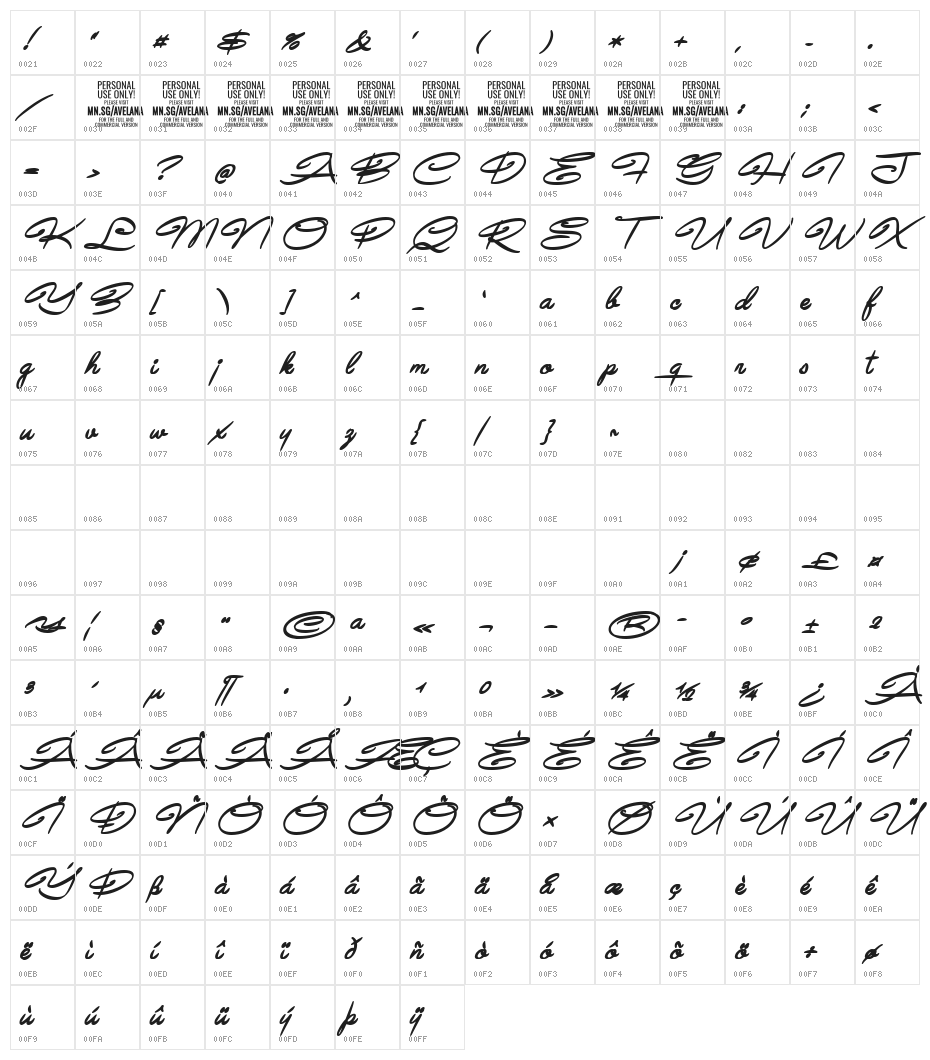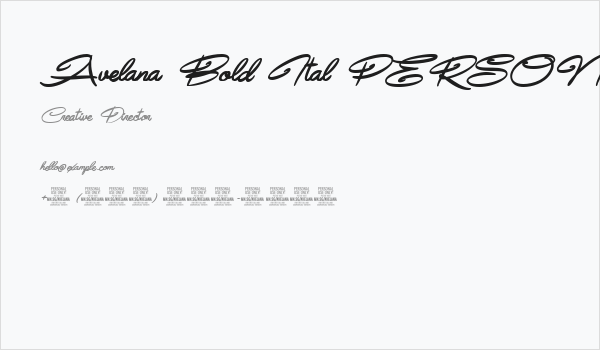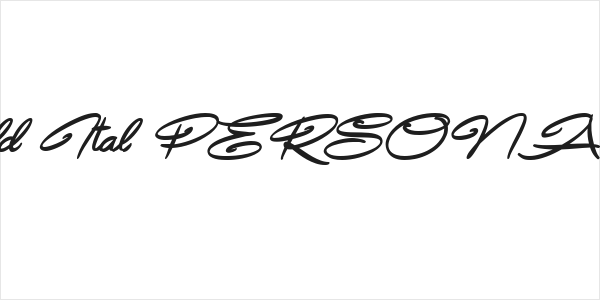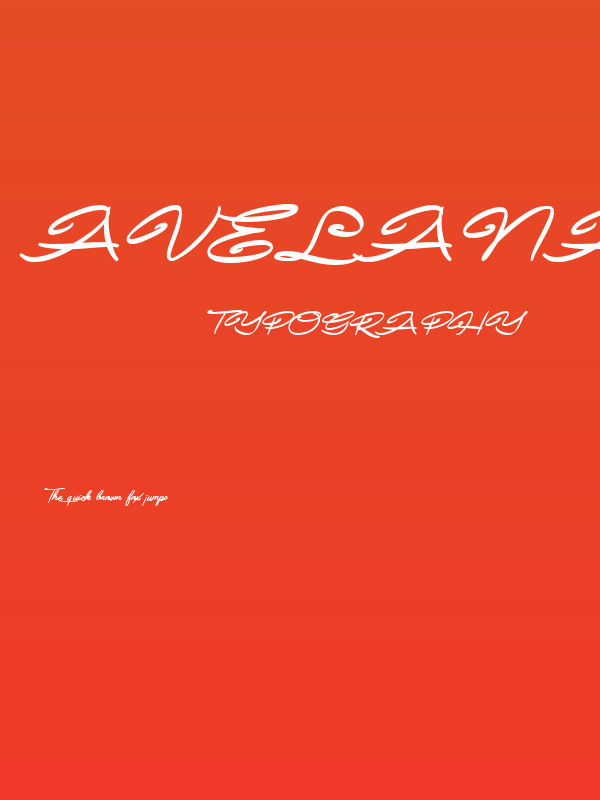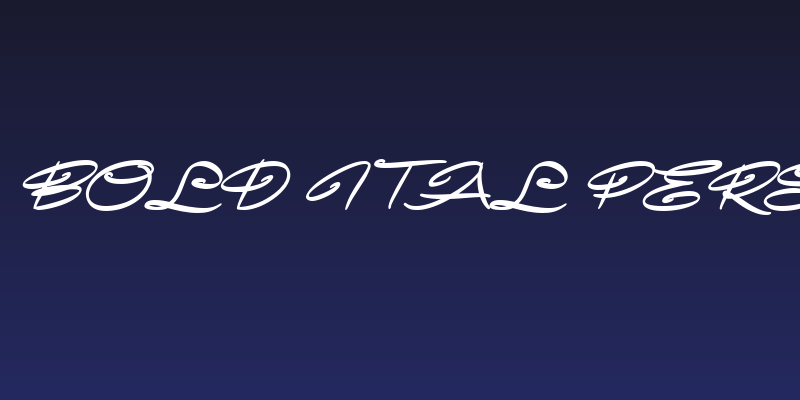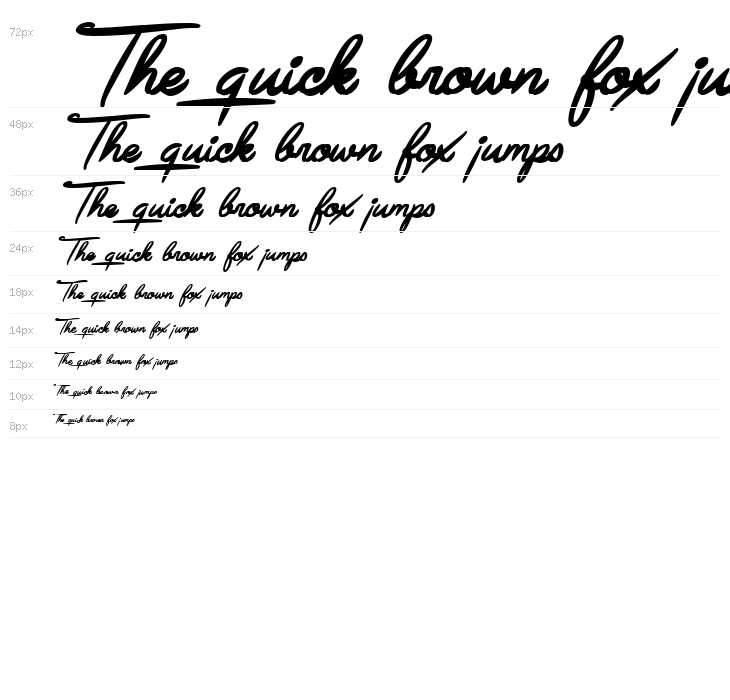
Avelana Bold Ital PERSONAL USE Font
Avelana Bold Ital PERSONAL USE Description
This font features a dynamic and expressive script style, characterized by its bold and italicized strokes. The uppercase letters exhibit a flowing, cursive design with elegant loops and swashes, while the lowercase letters maintain a consistent fluidity, enhancing the overall aesthetic. The numerals and special characters are crafted with the same attention to detail, ensuring a cohesive look across all glyphs. The font's bold weight and italic slant contribute to its striking presence, making it suitable for impactful designs. Its artistic flair is ideal for projects that require a personal touch, such as invitations, branding, and creative headlines.
Use CaseHeadlines, Logos, Invitations
Proposed ProjectsIdeal for invitations, branding, creative headlines, and any design requiring a personal, artistic touch.